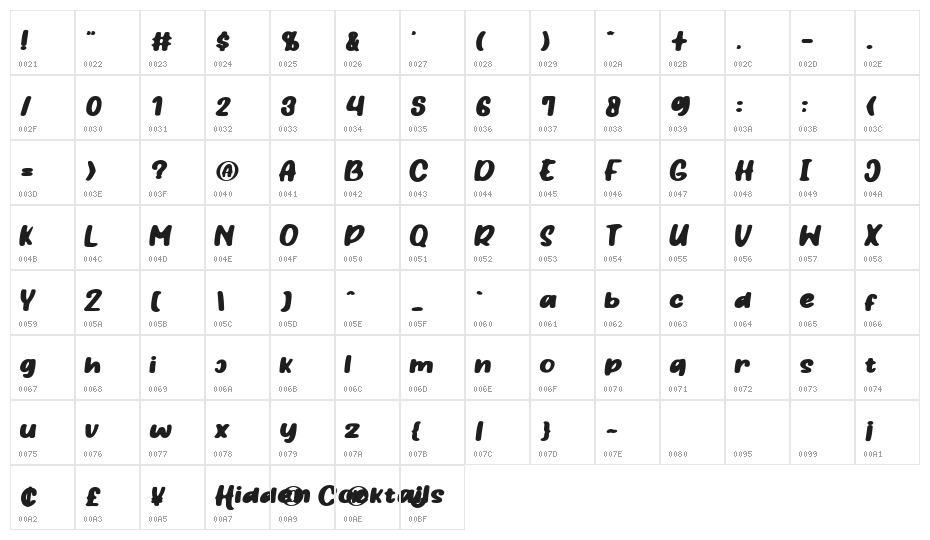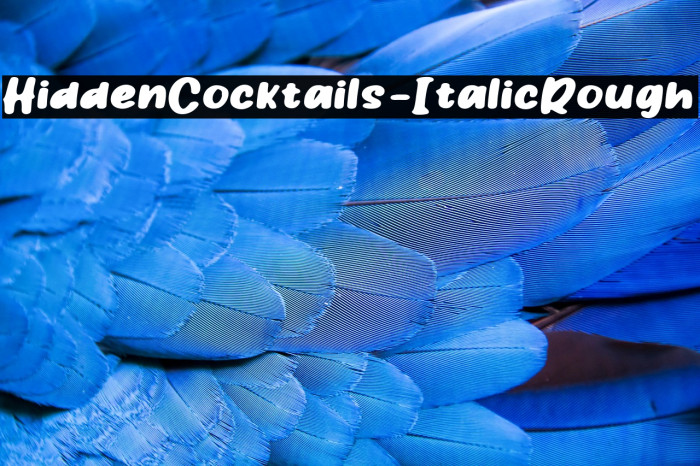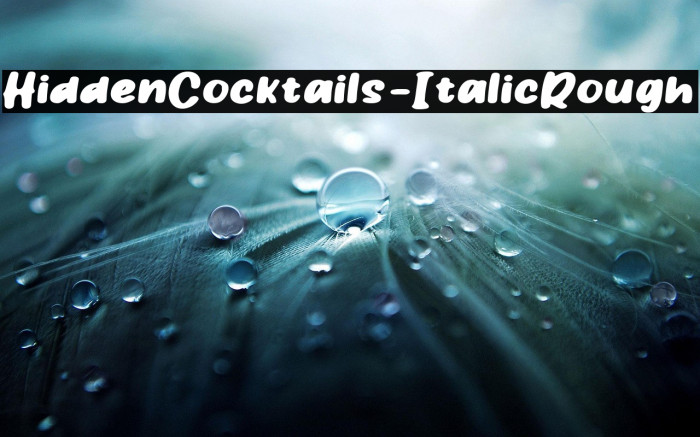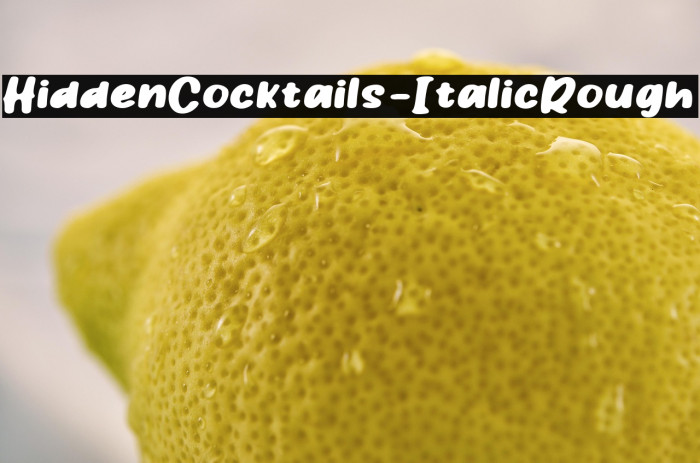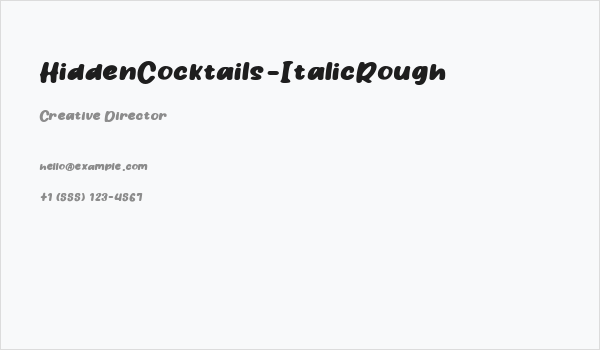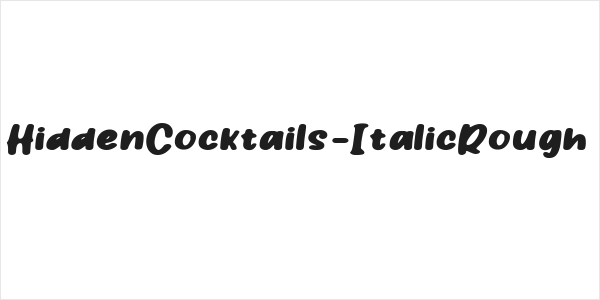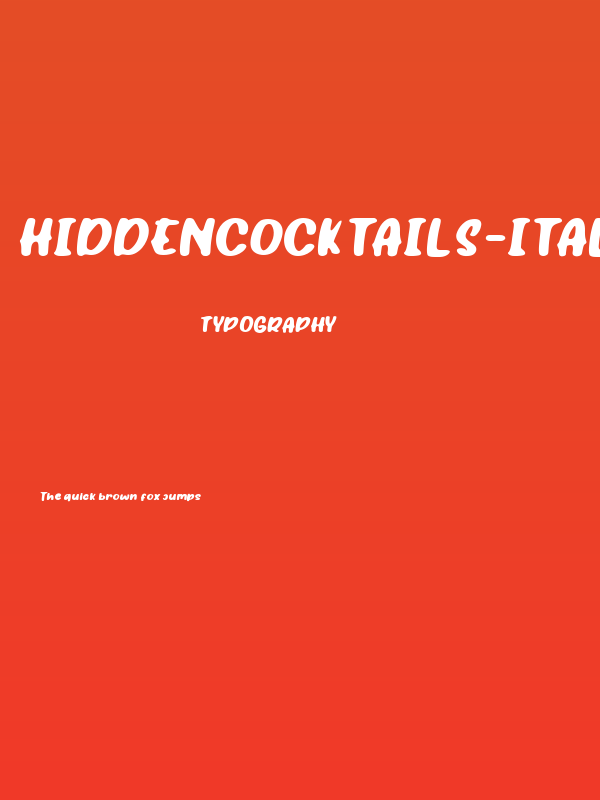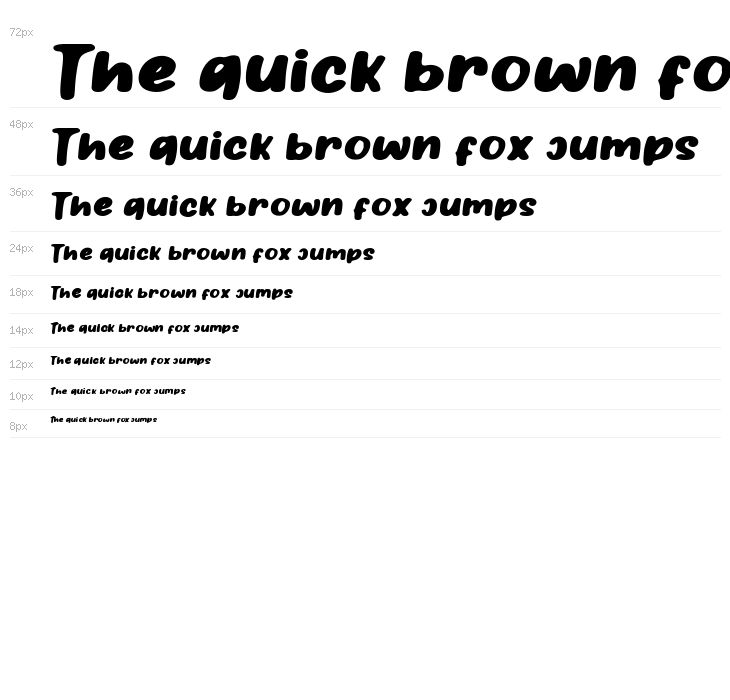
HiddenCocktails-ItalicRough Font
HiddenCocktails-ItalicRough Description
This font features a bold and playful style with a rough, hand-drawn appearance. The characters are italicized, giving them a dynamic and energetic feel. The strokes are thick and rounded, contributing to a friendly and approachable look. The uppercase and lowercase letters maintain a consistent style, with a slight slant that enhances the casual aesthetic. The numbers and special characters are equally bold and maintain the same playful characteristics, making the font suitable for creative and informal designs.
Overall StylePlayful, Casual, Hand-drawn
Proposed ProjectsIdeal for children's book covers, playful branding, casual posters, and creative social media graphics.